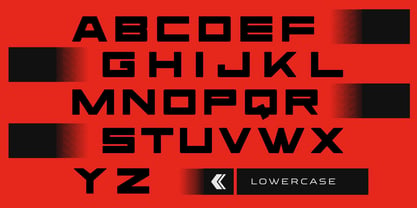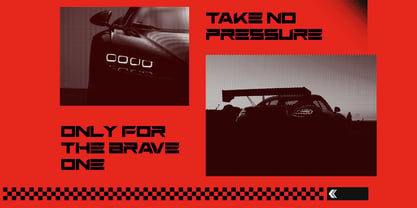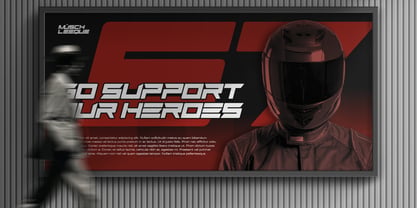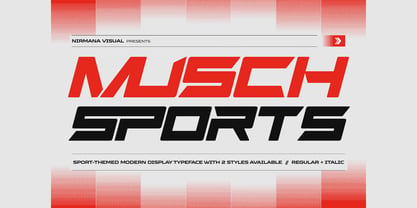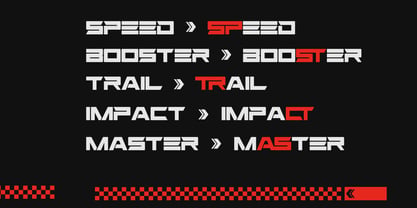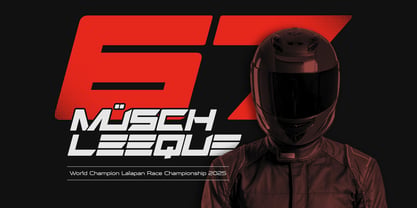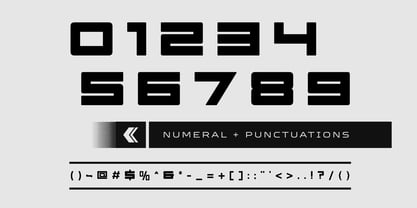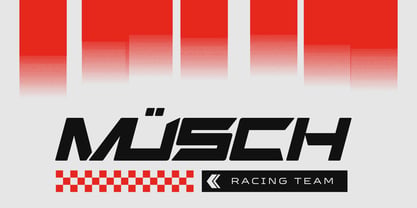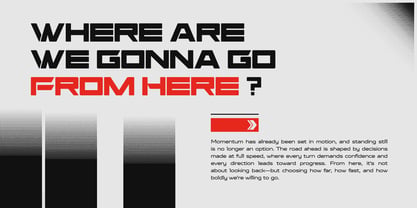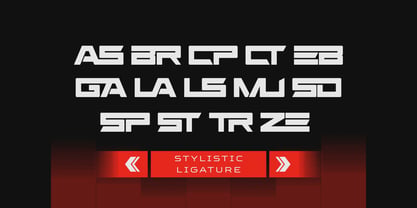
Musch Sports
by Nirmana Visual
The Musch Sports Font Family was designed by Sigit Dwipa and published by Nirmana Visual. Musch Sports contains 2 styles and family package options. More about this family
Musch Sports: The Ultimate Powerhouse Athletic Typeface Elevate your game with Musch Sports, a high-octane display font designed for winners. Built with a perfect balance of raw power and aerodynamic precision, this typeface captures the adrenaline of the stadium and the grit of the training room. Designed for Peak Performance Musch Sports features bold, blocky structures and sharp, aggressive angles that command attention. Whether you are designing for a professional league or a local varsity team, this font delivers a professional, "big-brand" look instantly. It’s not just a font; it’s a jersey-ready statement. Perfect For: Team Branding: Logos, mascots, and identity kits. Apparel Design: T-shirts, hoodies, and performance headwear. Social Media: High-impact YouTube thumbnails, Instagram workout quotes, and match day announcements.
Designers: Sigit Dwipa
Foundry: Nirmana Visual